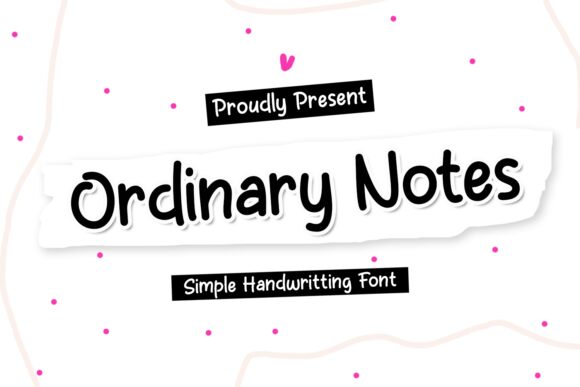
Ordinary Notes Thin
Ordinary Notes Thin font maintains the essential aspects that make handwritten fonts so fun and authentic. It presents a casual, relaxed mood with no pressure for perfection, resulting in beautiful imperfections. From its slightly irregular letters to others with more pronounced details, this light handwritten font offers a friendly impression with every single character.
Establishing a positive undertone of originality and comfort is always helpful for advertising products and brands. So use Ordinary Notes Thin in ads and branding projects including logos and business cards or personalize your Instagram posts, stories, or TikTok videos by using it in your captions for free! Embrace what’s new by re-designing blogs for adventures or learning platforms focused on languages as they always include handwriting reading tasks where authenticity is needed!